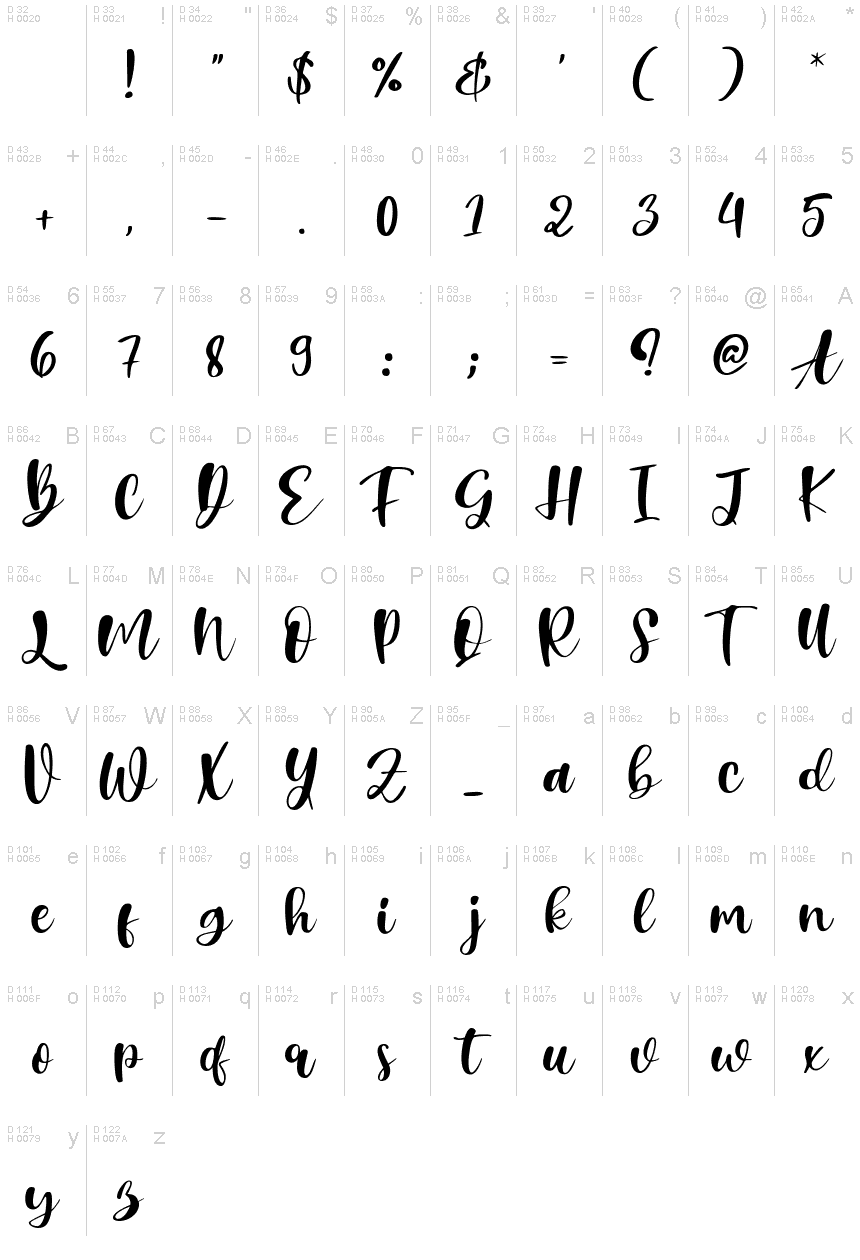
Mother Happy, the calligraphy semi-bold font designed by Khurasan, is sure to bring joy to any project. Its elegant curves and fluid strokes make it perfect for wedding invitations, greeting cards, and other celebratory projects. But don't let its whimsical name fool you - Mother Happy is also suitable for more serious endeavors such as branding and logo design. Its versatility and readability make it a great choice for both print and digital media. Add some happiness to your next project with Mother Happy!
Mother Happy